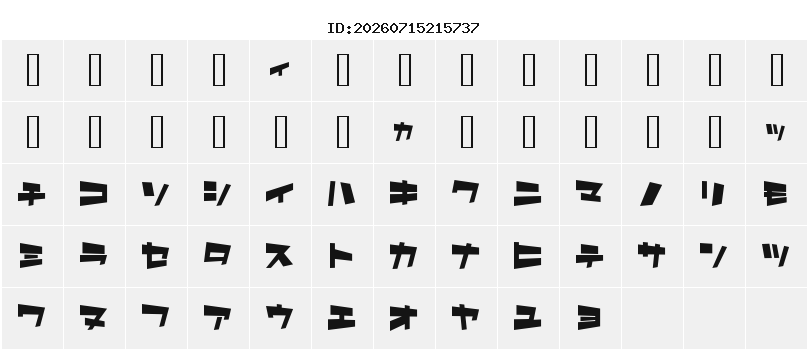
AstroT Preview
About AstroT.ttf
AstroT.ttf is a modern, elegant sans-serif font designed for ultimate readability and visual harmony. Perfect for branding, headlines, web design, and print materials.